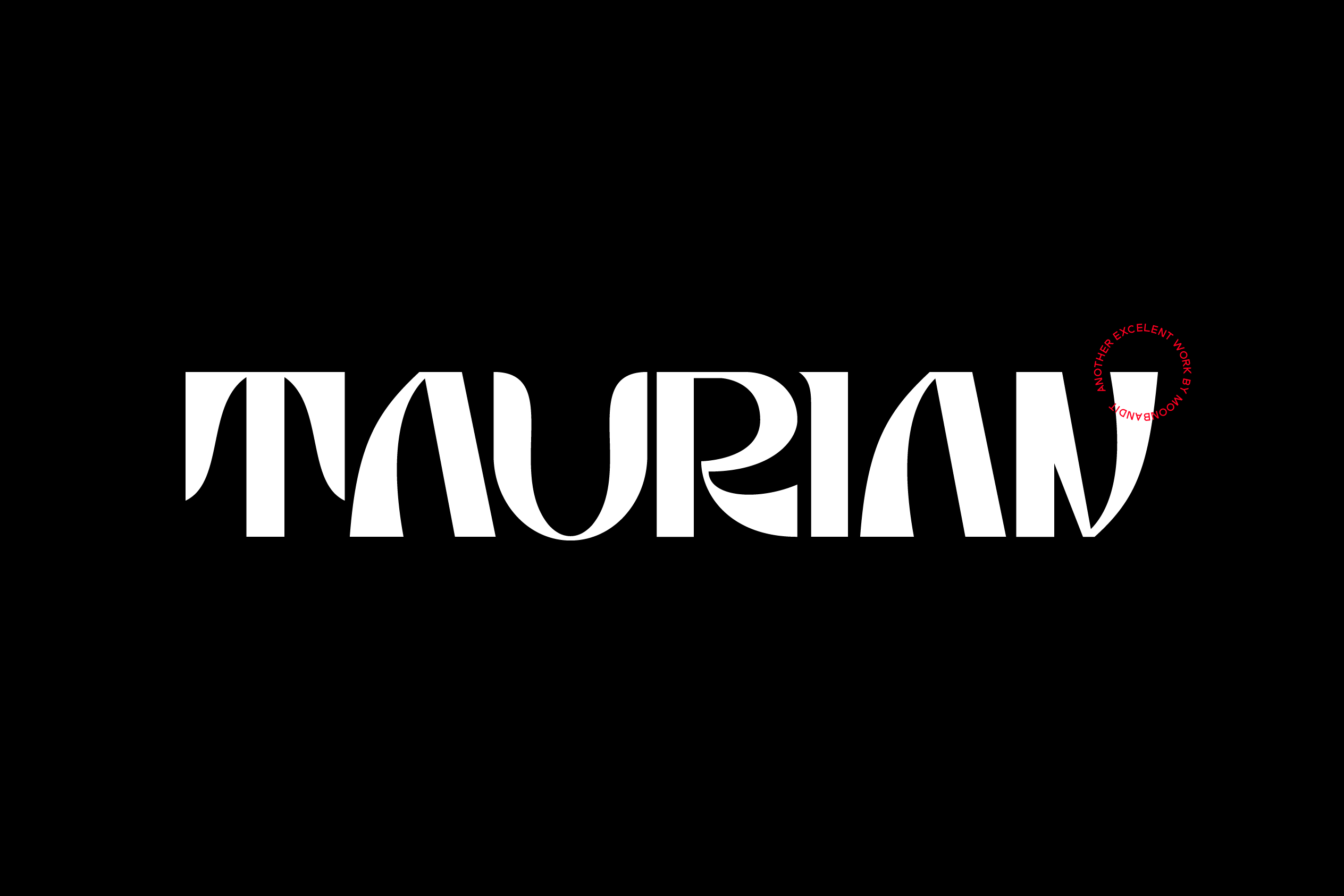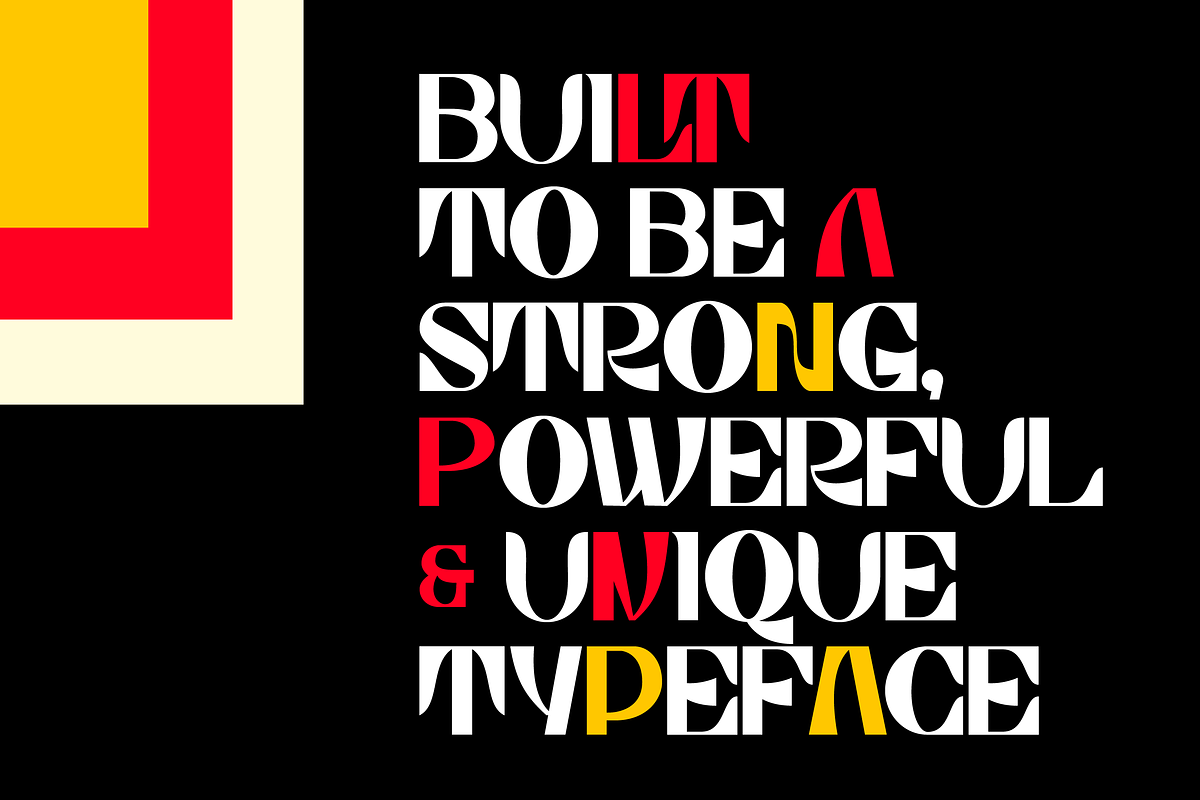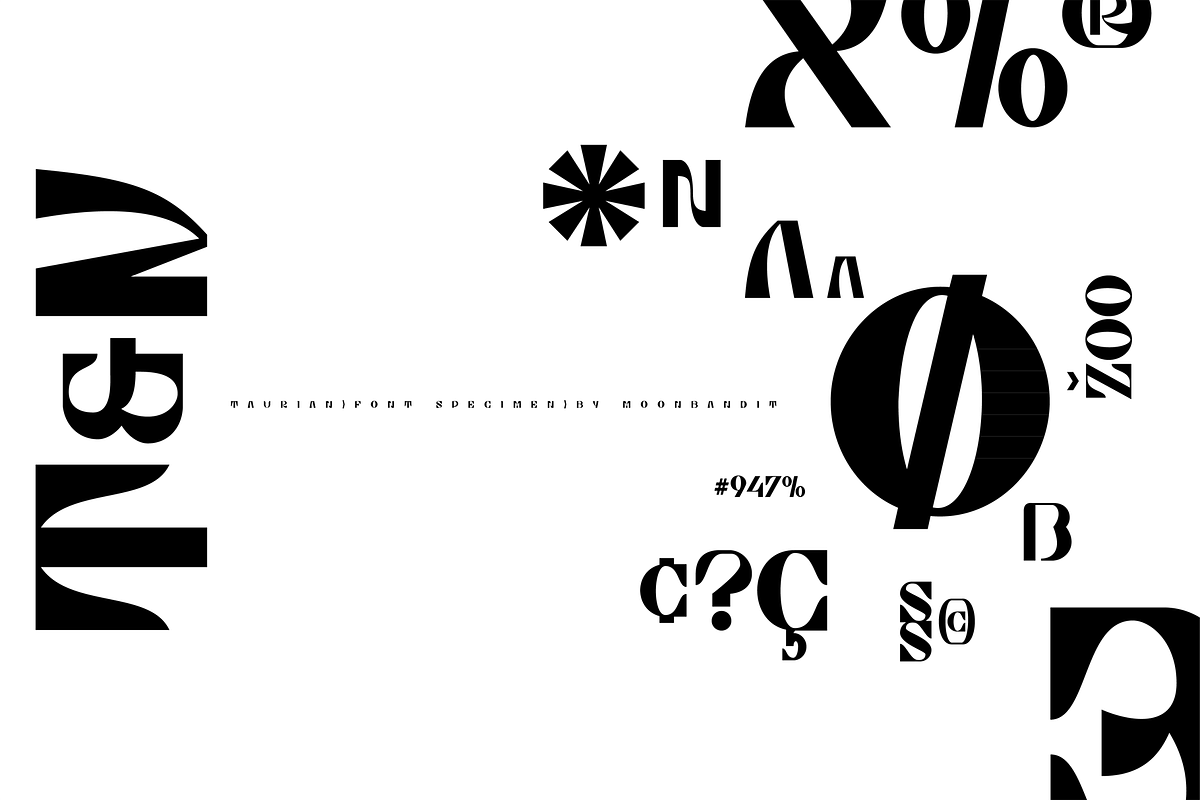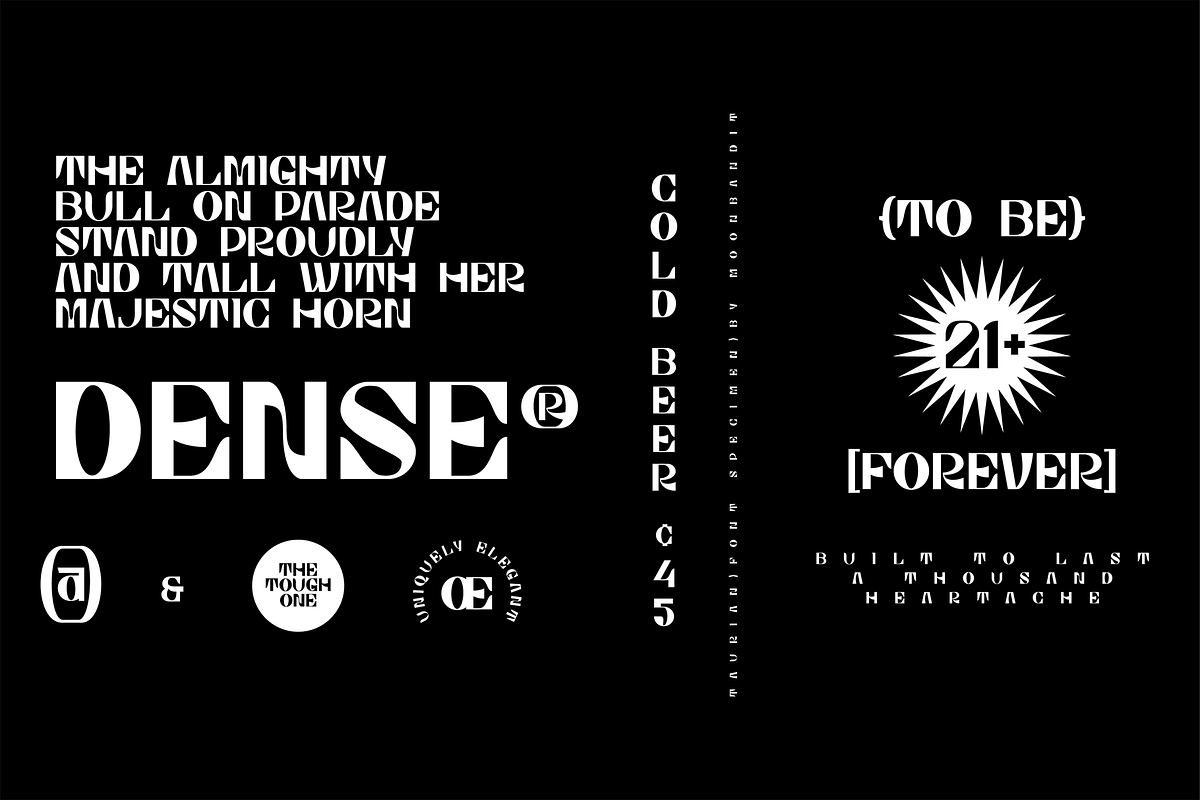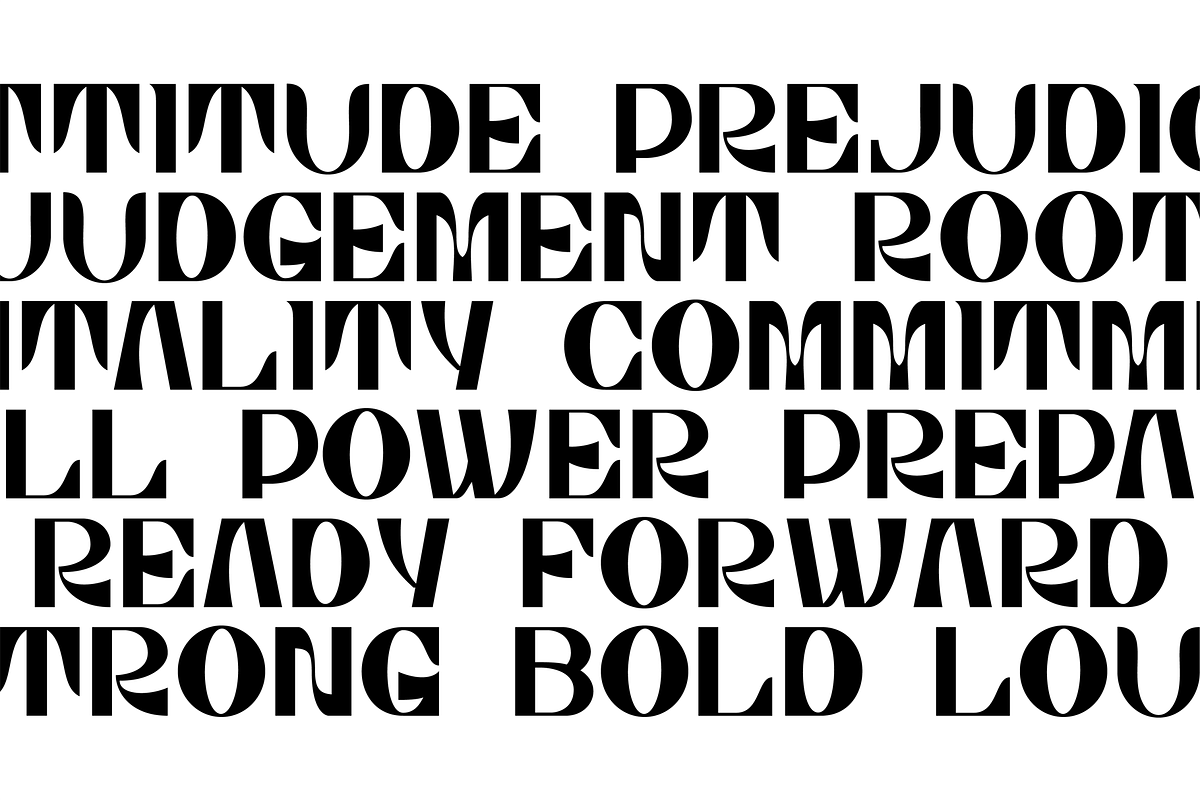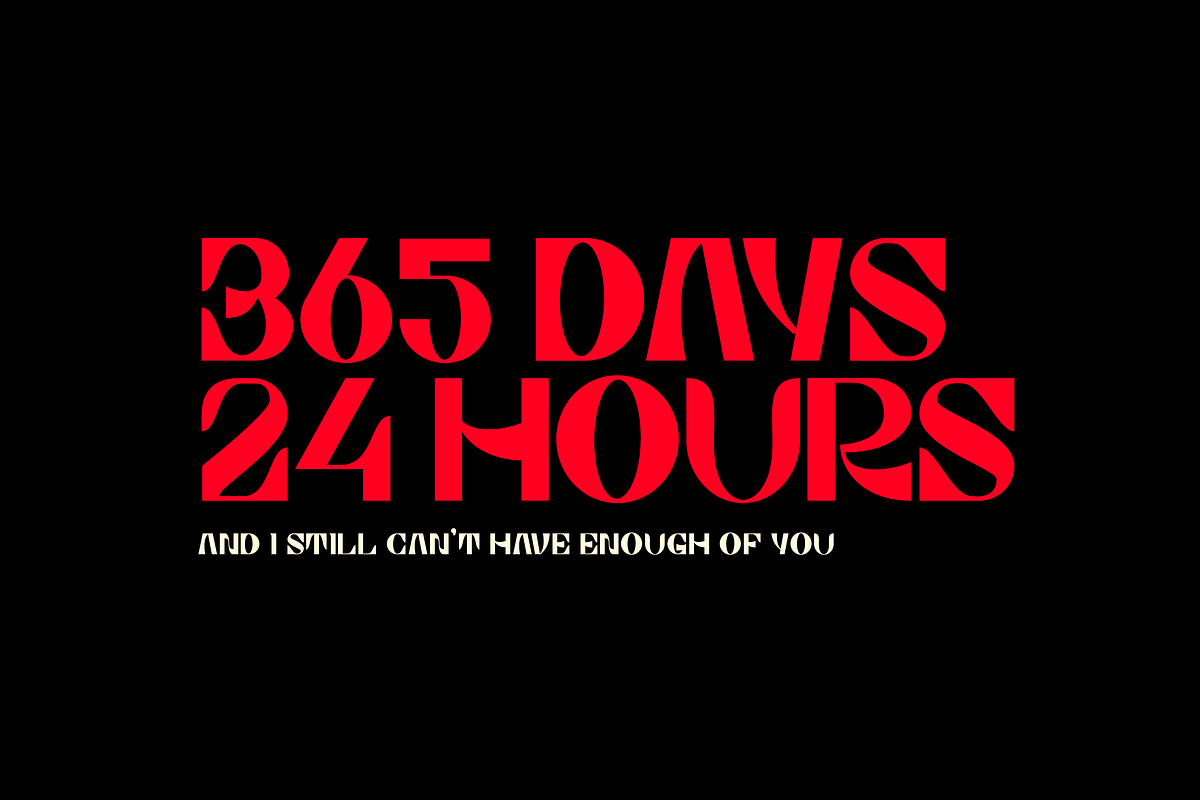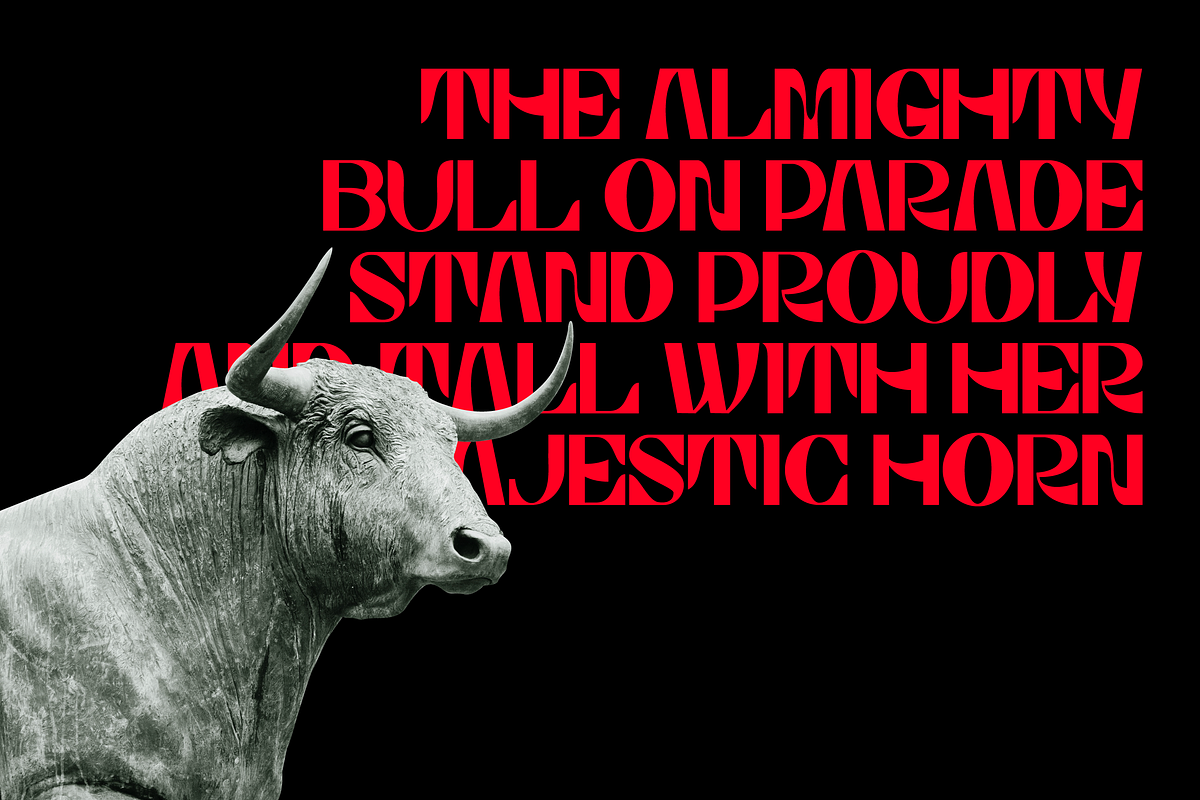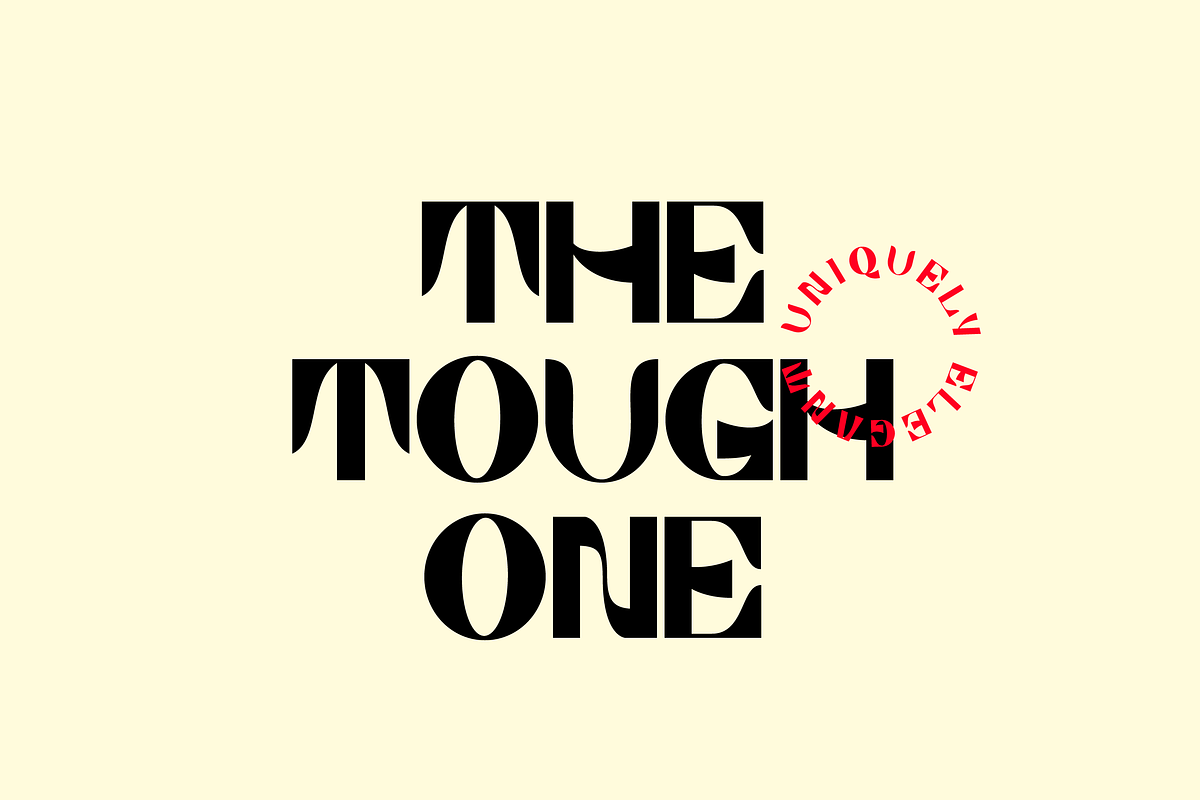
Taurian, bold & elegant display font
Introducing Taurian, a bold and elegant display typeface. Inspired by the majestic horn of the bull, taurian can gives a proud, strong and bold elegance to your projects. Passionately built with the utmost details on each glyph. Ideal use as a headline, title, display, logo, and many other.
opentype features include:
- ligature
- alternate
- kerning